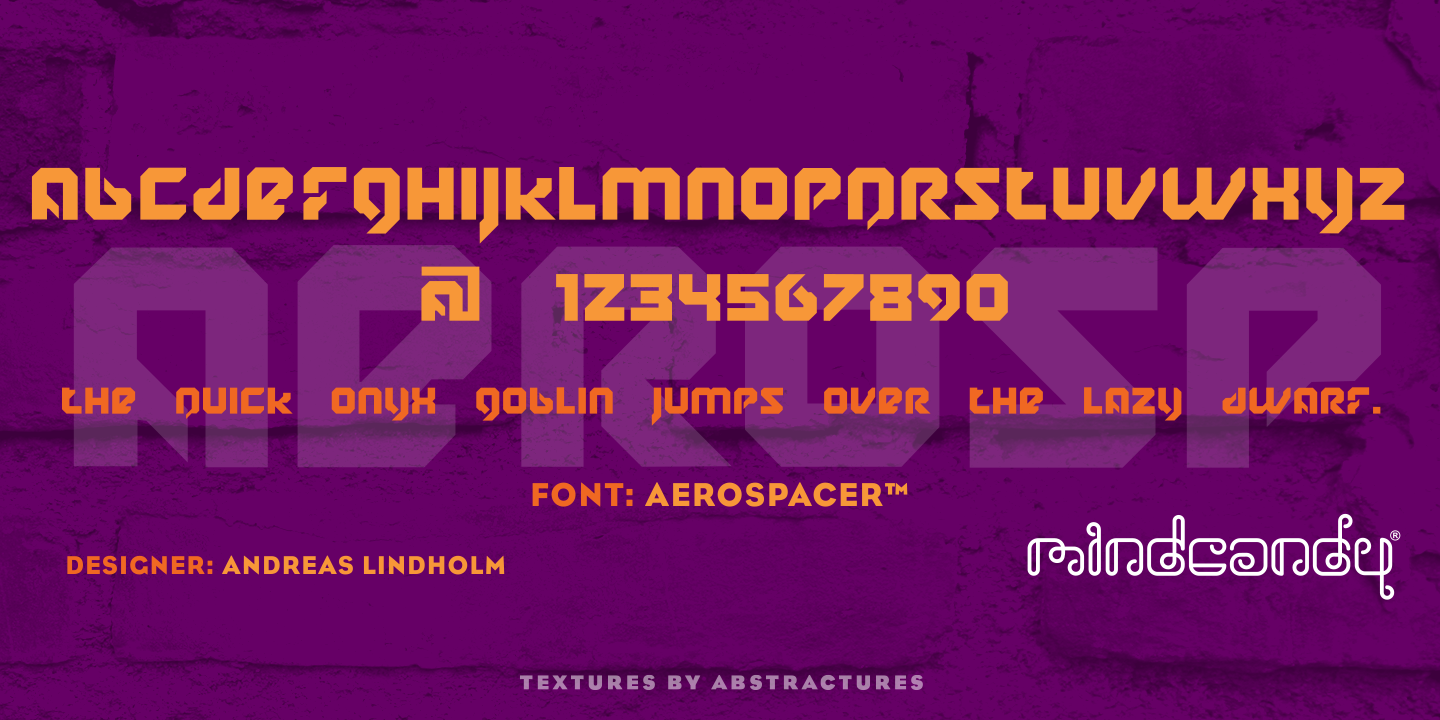
Aerospacer™
Designed by Jeff Gillen, Aerospacer™ is a display sans font published by MINDCANDY.
Aerospacer™ is a “techie” font, that could be described as a “black” font because it is very thick, very legible. © 2000. All Rights Reserved. Designed by Andreas Lindholm. Distributed with permission by Mindcandy® on Fontspring.com.